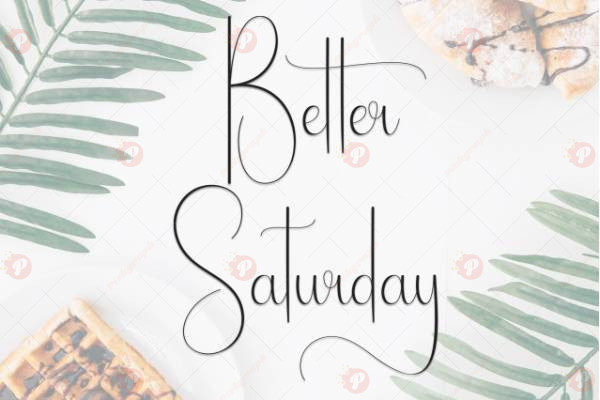
The Better Saturday Handwritten Free Font is a fun, playful, and stylish handwritten script designed to add personality and charm to your creative projects. Its fluid, casual strokes make it ideal for logos, branding, invitations, greeting cards, posters, packaging, and social media graphics.
Perfect for designers, bloggers, and creatives, this font brings a friendly, approachable, and handcrafted feel to both digital and print designs, making your projects look modern and unique.
Font Style: Handwritten / Script / Display Typeface